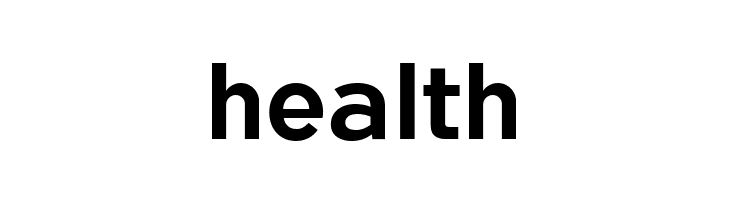
( dccanim - Draghia Cornel - dccanim.deviantart.com )
A tall, narrow, and artistic font with a playful, hand-drawn style.
( deFharo - Fernando Haro - defharo.com )
A bold, modern font with clean lines and a strong presence.
( deFharo - Fernando Haro - defharo.com )
A bold slab serif font with strong, block-like serifs and a robust presence.
( deFharo - Fernando Haro - defharo.com )
A modern and elegant typeface with a clean, balanced design.
( deFharo - Fernando Haro - defharo.com )
A modern sans-serif font with smooth curves and a balanced structure.
( deFharo - Fernando Haro - defharo.com )
A clean, modern sans-serif font with uniform stroke width and rounded characters.
( deFharo - Fernando Haro - defharo.com )
A modern, sans-serif typeface with clean lines and balanced proportions.
( deFharo - Fernando Haro - defharo.com )
A bold, modern typeface with strong lines and uniform stroke width.
( deFharo - Fernando Haro - defharo.com )
A bold semi-slab serif font with a modern and impactful design.
( deFharo - Fernando Haro - defharo.com )
A modern semi-slab serif font with a bold and balanced design.